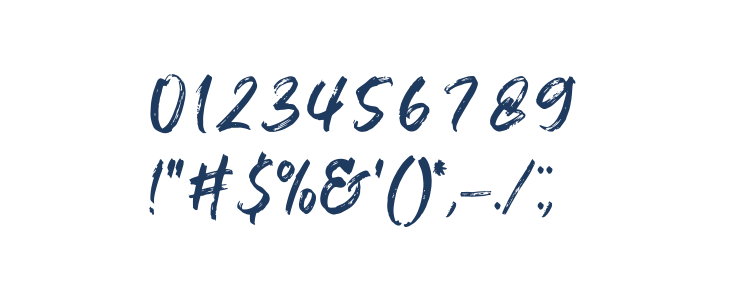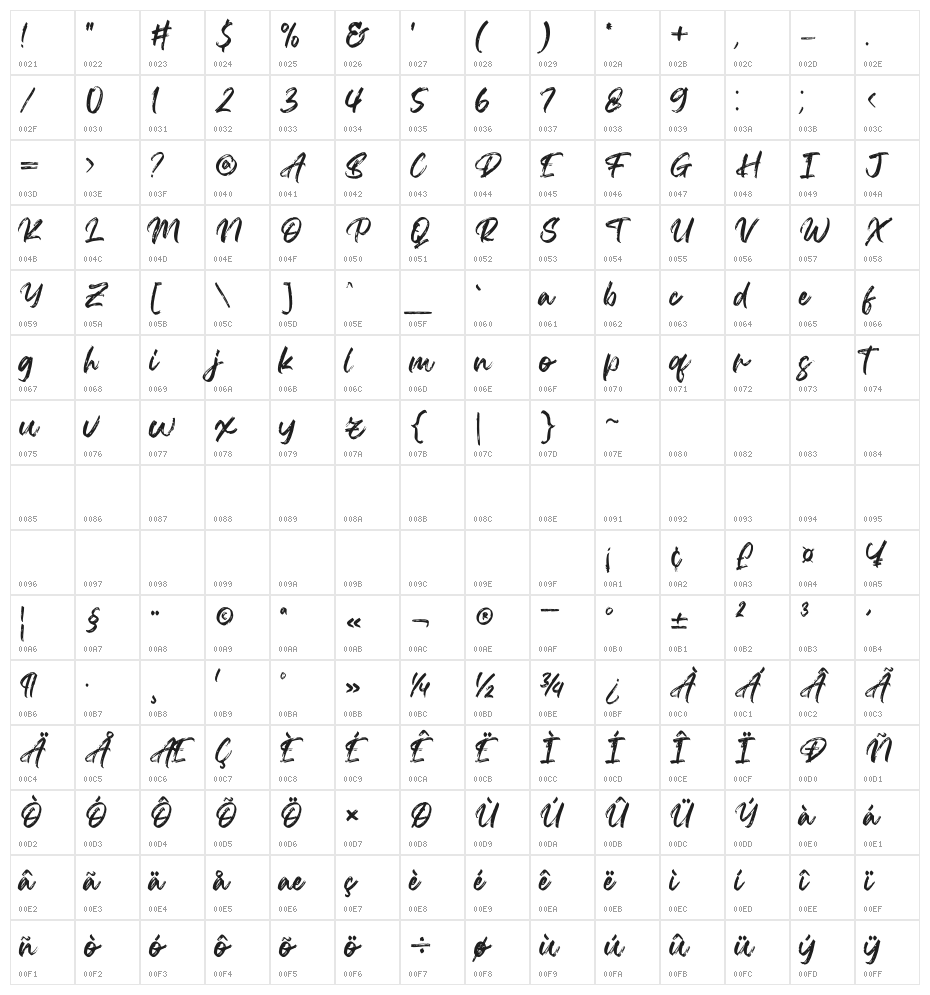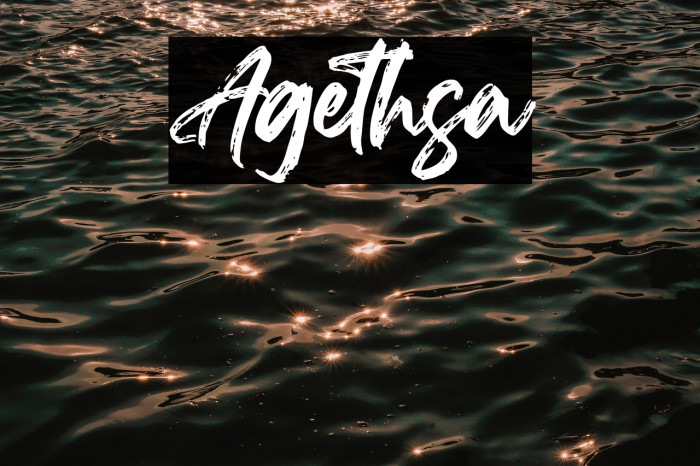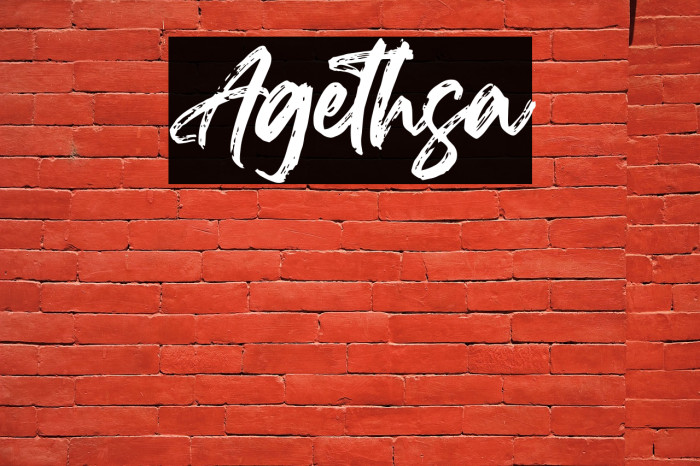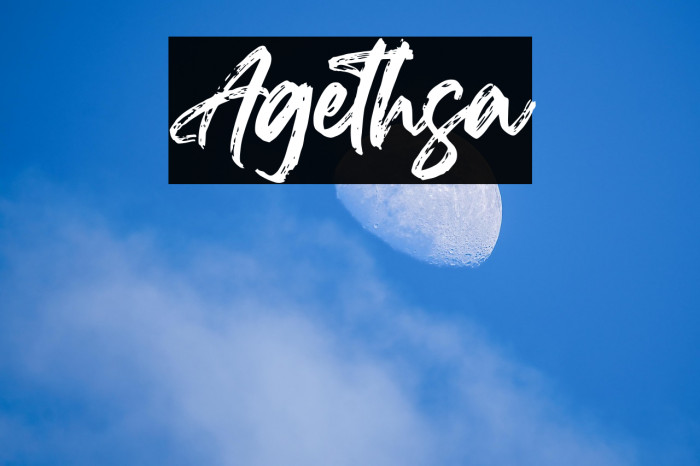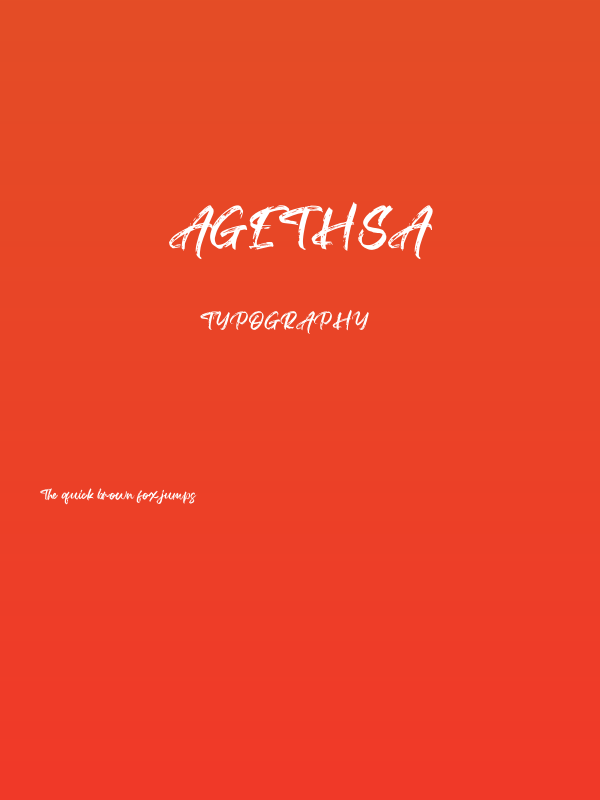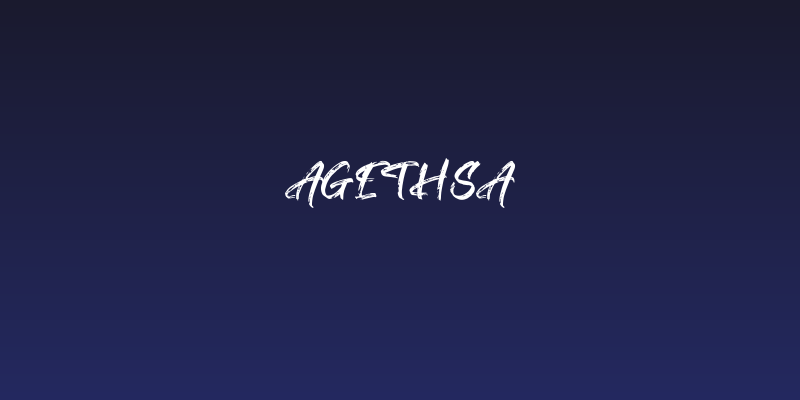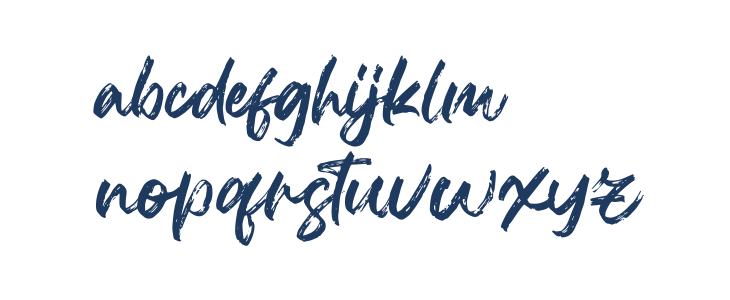
Agethsa Font
| Anwendungsfall | Logos, Headlines, Posters |
| Vorgeschlagene Projekte | Ideal for branding, packaging, posters, and invitations where a personal, artistic touch is desired. |